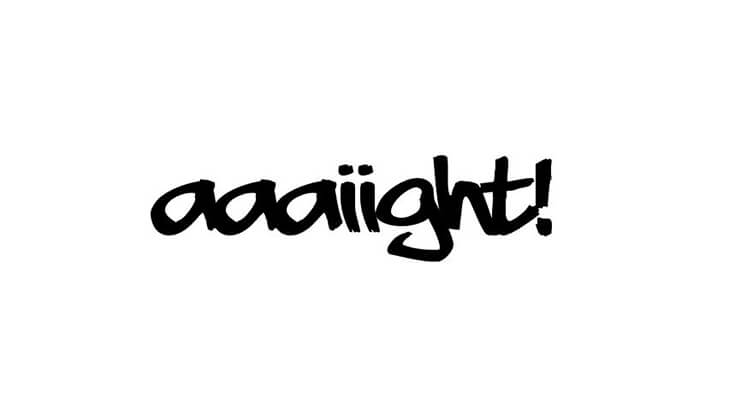
If you’re looking for the style used in graffiti tags, Aaaiight Font could be one of the best graffiti typefaces for your project.
It is a very versatile font that can be used in a variety of situations. When used correctly, it can add a touch of class and sophistication to any design.
This amazing typeface can be found in two unique styles that contain 217 defined characters and 52 unique glyphs.
It is a bold graffiti-style typeface that features a unique blend of geometric and organic shapes, giving it a distinctive look that is perfect for eye-catching designs.
With its strong visual impact and playful personality, Aaaiight Font is a great choice for projects that want to make a statement and stand out from the crowd. It is suitable for use in a wide range of design applications, including posters, headlines, logos, and more.
This font is also commonly used in advertising, product packaging, social media posters, flyers, headers, titles, banners, cards, t-shirt printing, horror posts, quotes, posters, special cards, t-shirt printing, flyers, logo designs, and wherever you want.
These fonts are perfect for any project that needs a touch of sweetness, such as invitations, cards, branding, and more.